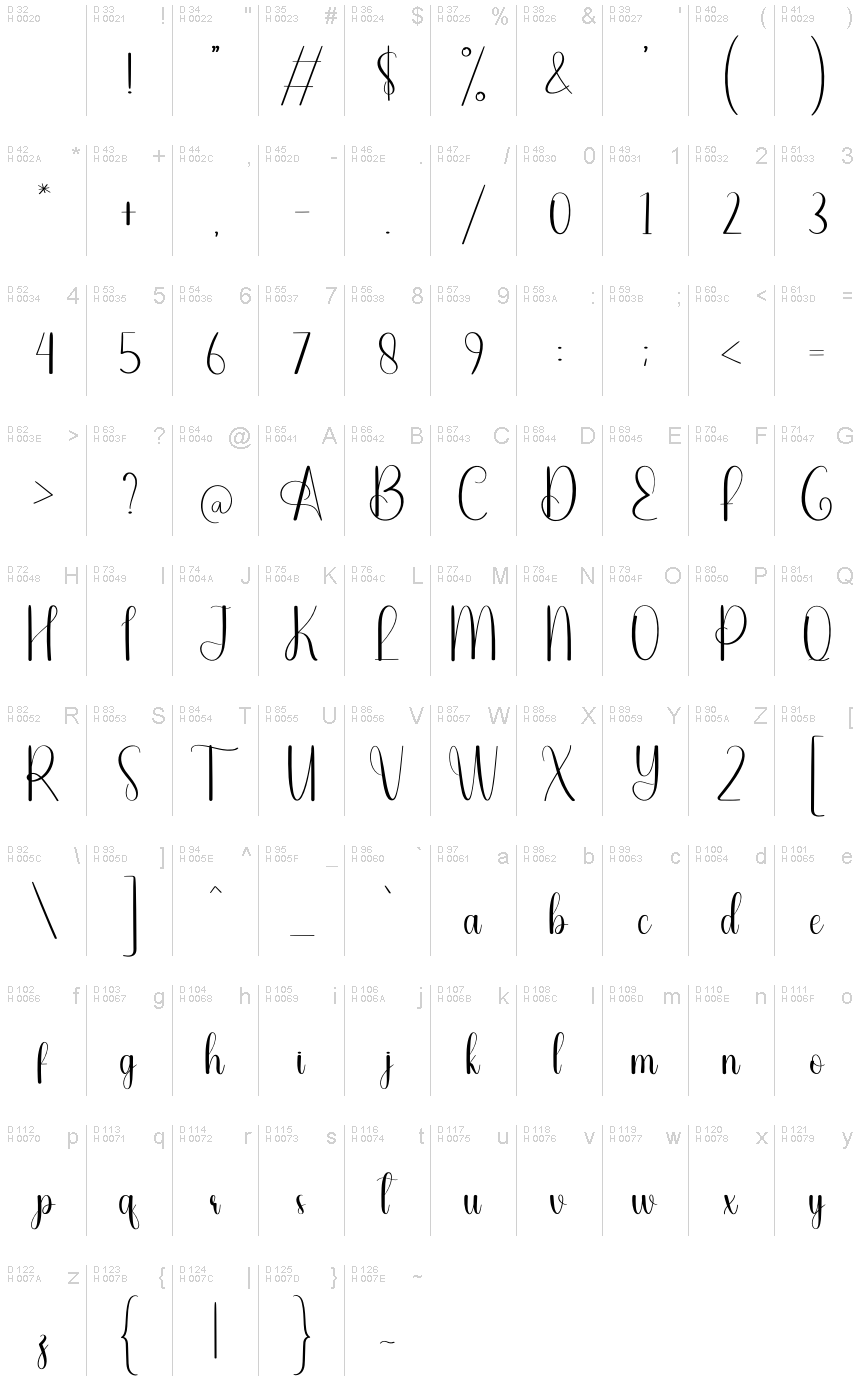
Knitting
Knitting, a calligraphic masterpiece crafted by the talented Andi Moz, exudes a sweet and friendly charm. This condensed font radiates a playful, handwritten essence, seamlessly blending elegant strokes with a whimsical flair. Its unique character and fluid movement captivate the eye, making it a delightful choice for those seeking to infuse their designs with a touch of warmth and personality.
Knitting's versatility shines through, making it an ideal selection for a variety of design applications. From wedding invitations to greeting cards and beyond, this font's charming appeal can elevate the aesthetic of any project that calls for a playful, personalized touch. Its ability to add a delightful, handcrafted feel to any design makes Knitting a must-have in the arsenal of designers and artists seeking to create visually captivating, emotionally resonant work.